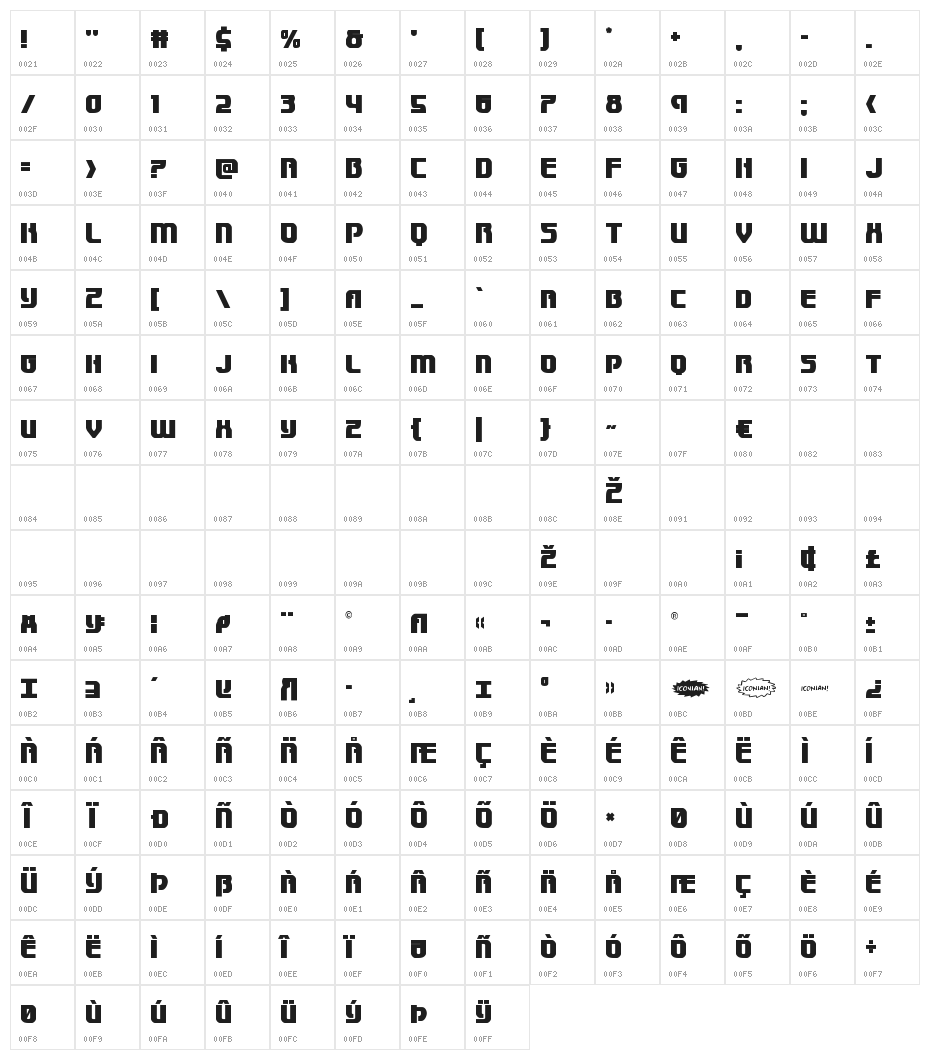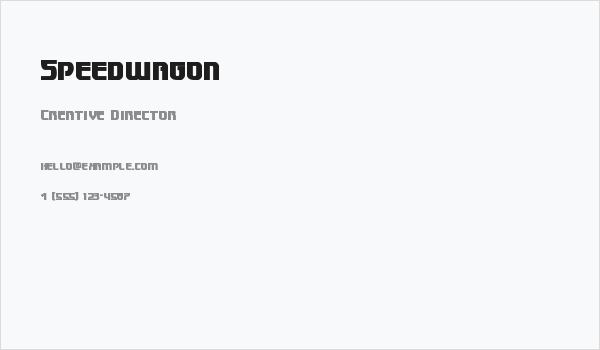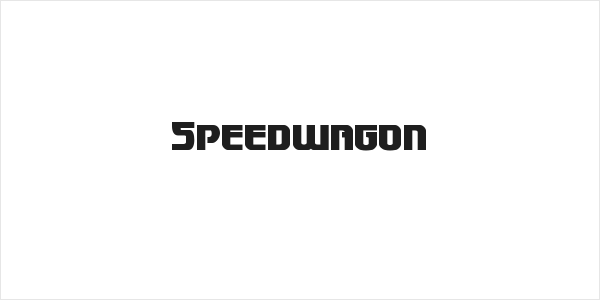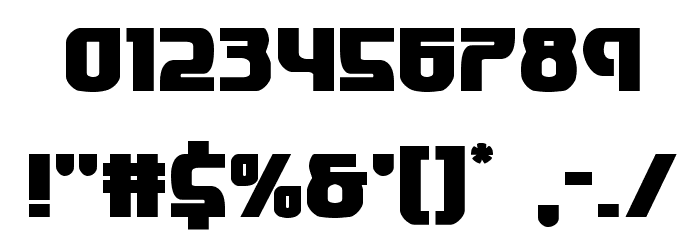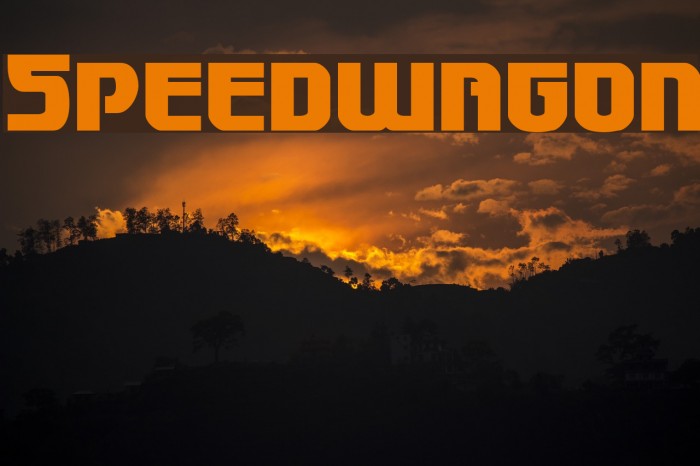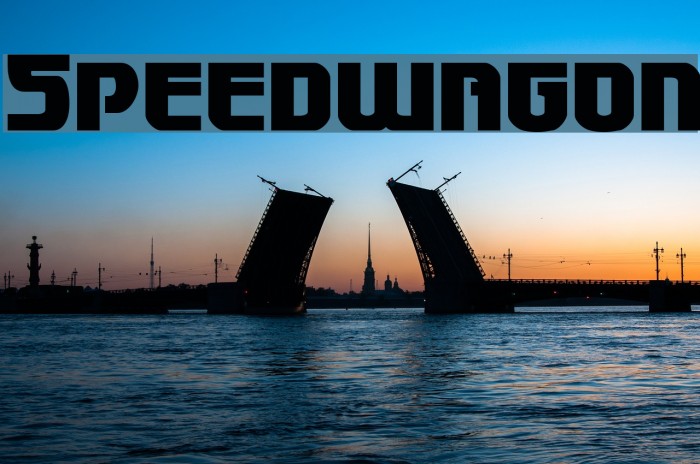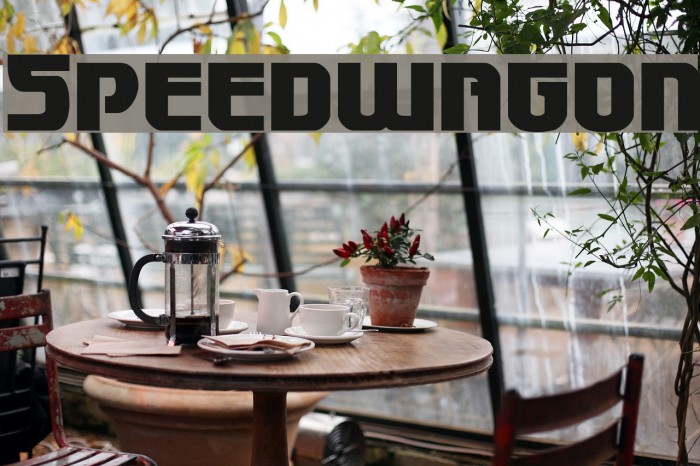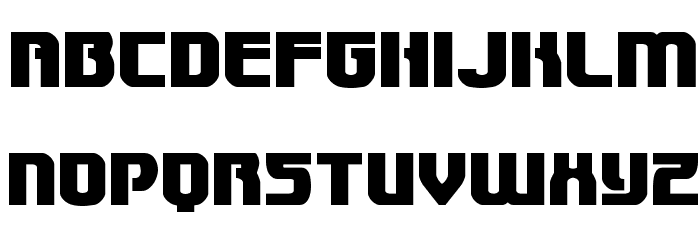
Speedwagon Font
Speedwagon Description
This font features a bold and impactful design with a strong geometric structure. The characters are blocky and robust, providing a sense of strength and stability. The uppercase and lowercase letters maintain a consistent height, contributing to a uniform appearance. The numbers and special characters follow the same bold style, ensuring cohesion across all elements. The font's design is reminiscent of industrial or futuristic themes, making it suitable for projects that require a modern and assertive look. Its thick strokes and minimal contrast emphasize its boldness, while the spacing between characters is tight, enhancing its compact and powerful presence.